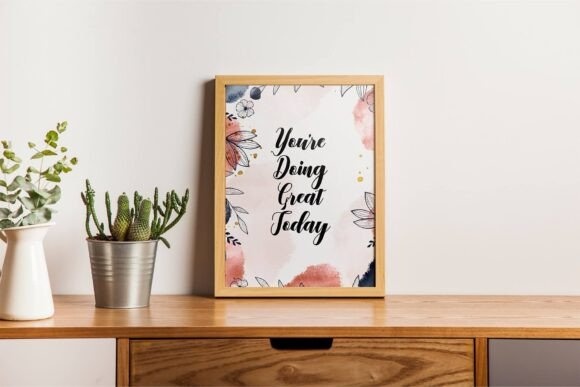
Lovaria is a handwriting script font that exudes charm and elegance, making it an ideal choice for projects that require a touch of sophistication. This unique typeface falls under the Sale Script category and beautifully mirrors contemporary handwritten styles. Whether you’re designing graceful wedding invitations, sophisticated logos, heartfelt greeting cards, or meaningful messages, Lovaria adds an authentic handwritten appeal to your work.
The font’s design features rounded curves and well-balanced letters, ensuring versatility across digital and print platforms. Lovaria also includes multilingual support and perfectly crafted ligatures, elevating your designs with a polished, professional finish.
Additionally, the Hypereal font complements Lovaria, making it suitable for branding projects, letterheads, quotes, and any creative work that calls for a personal, handcrafted impression.
Lovaria Handwritten Script Font